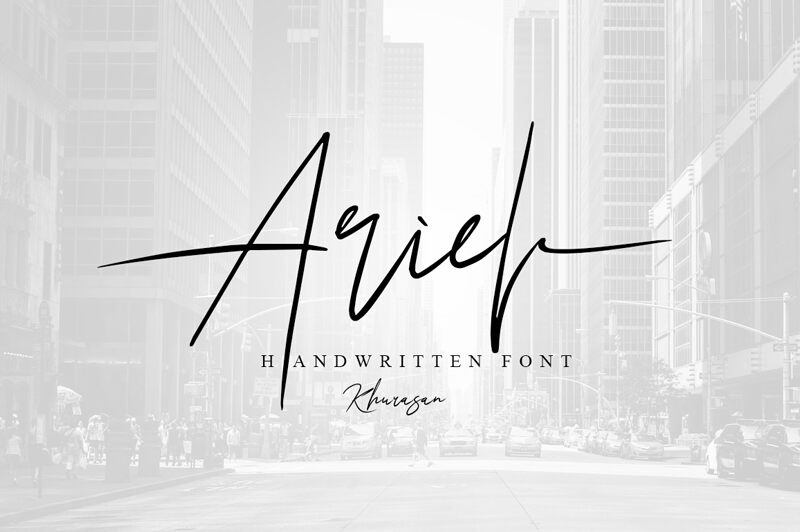
Ariel Script font family is a free handwritten font by Khurasan offered in 2 styles. Its flowing, modern, and sophisticated feel is reminiscent of the elegance of the early nineties when life was simpler and yet classy. In our fast-paced contemporary world, it’s nice to occasionally revert to such class and add a personal artistic flair to designs. And this script font has plenty to offer as it brings each character a new surprise.
Be stylish with your pins and use Ariel Script for your Pinterest posts or give your greeting cards a unique vibe with the font’s natural line style. Ariel Script can be used for ink in handwritten quotes, for special business cards for one-of-a-kind tastes, or even for invitations to female empowerment events such as Women Support or Girls Night.
Whether it’s the font combination, how the lines connect, or even the variation of each letter’s patterns, something will grab your attention and bring forth extravagant designs. All of which are possible for personal projects as the files are only free to use for such projects.